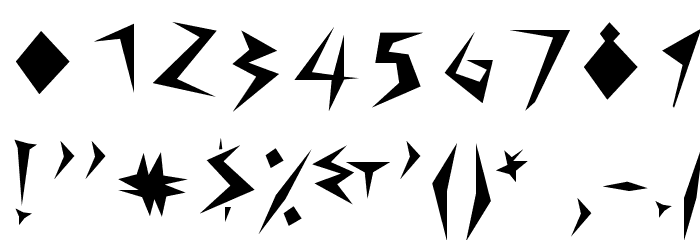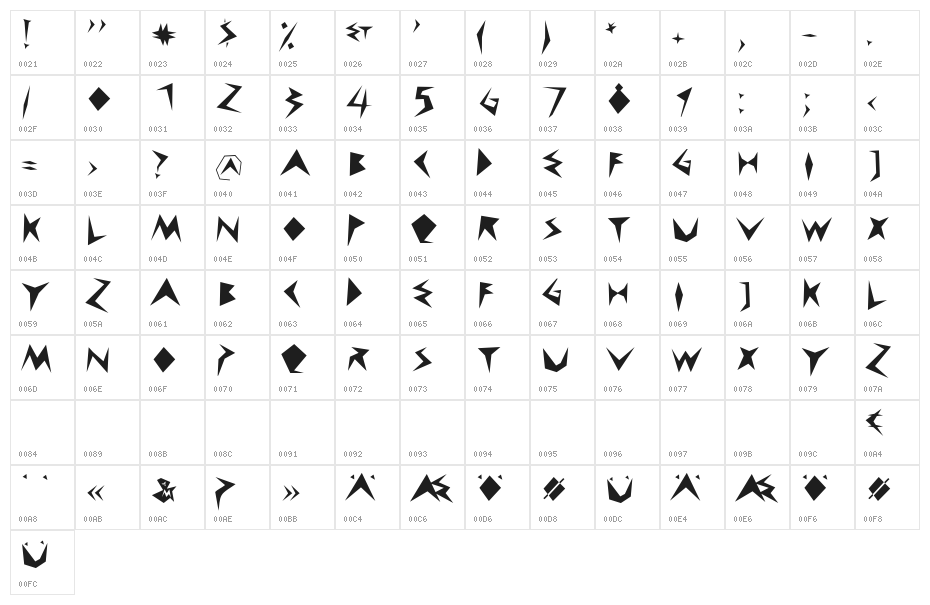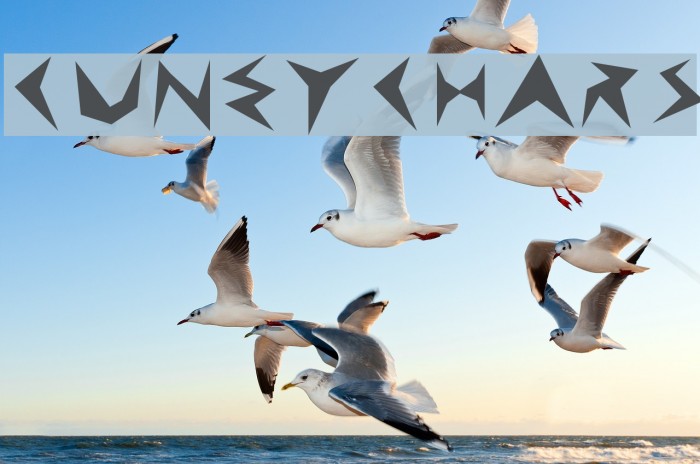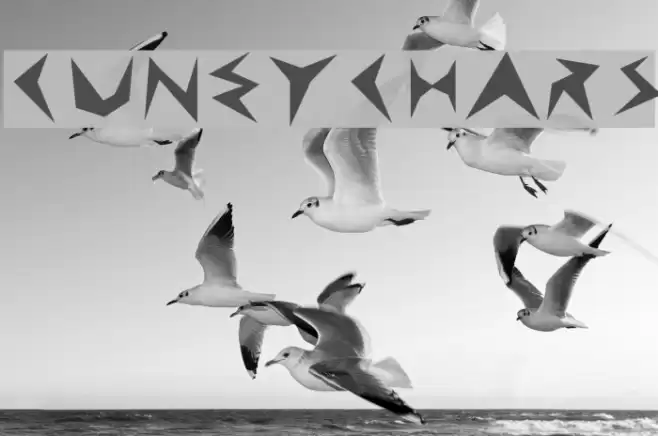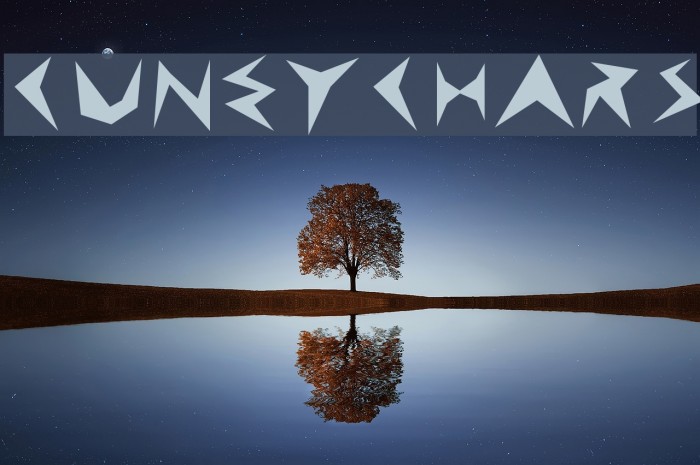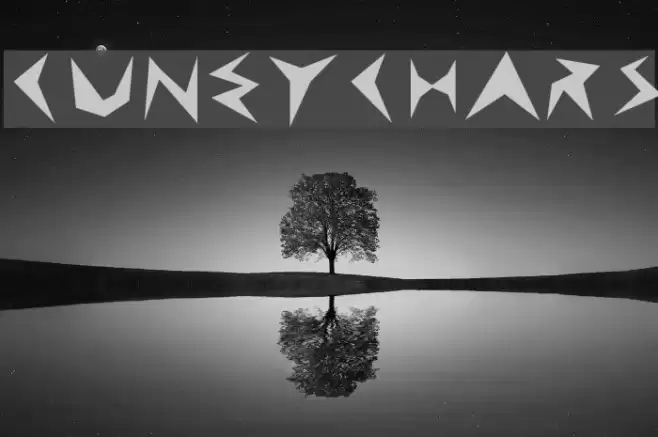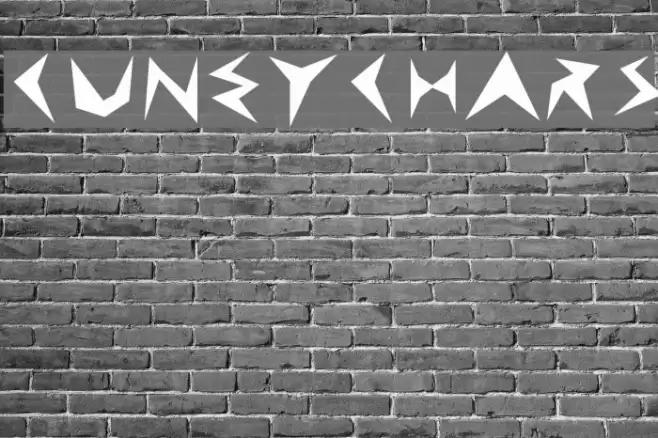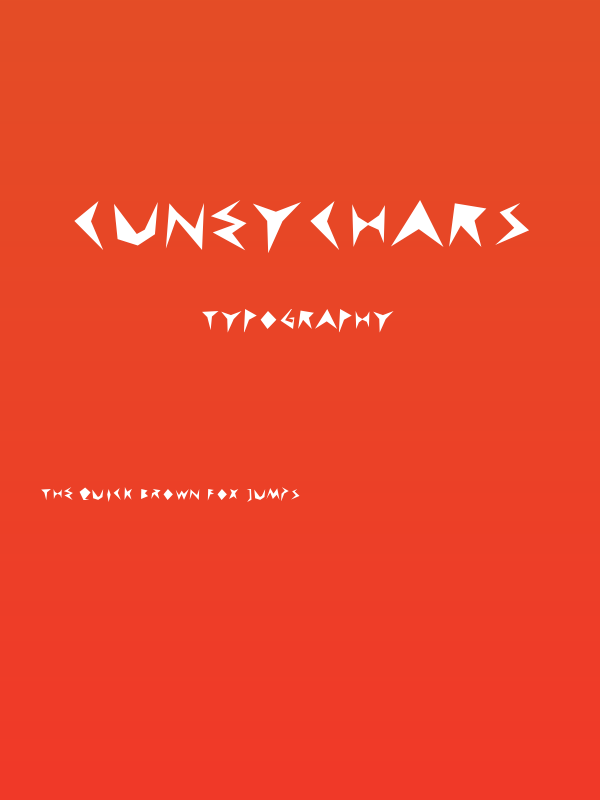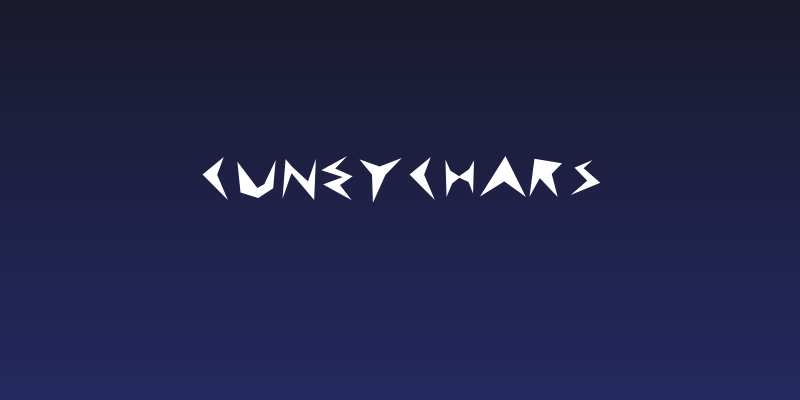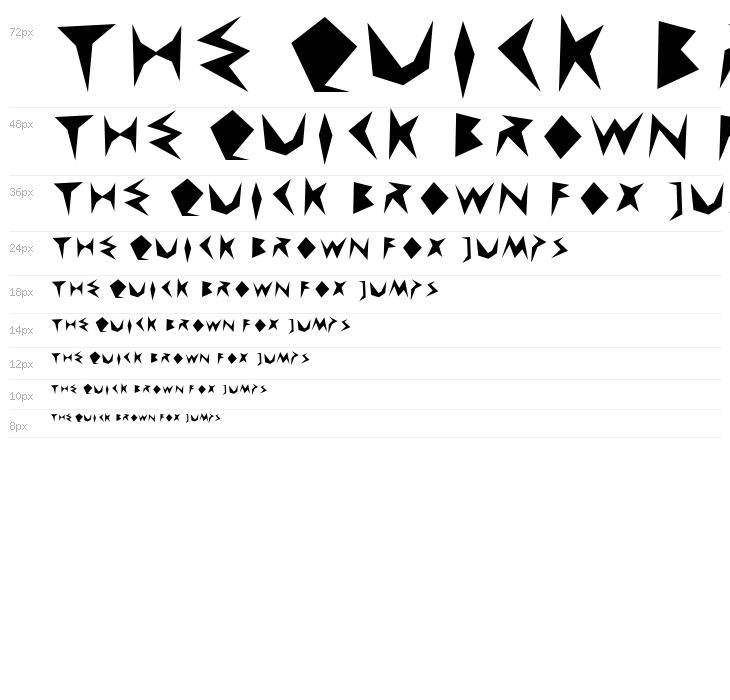
CuneyChars Font
CuneyChars Description
This font features a bold and angular design, characterized by sharp, jagged edges and a geometric aesthetic. Each character is uniquely crafted with a dynamic, edgy style that conveys a sense of motion and energy. The uppercase letters are particularly striking, with exaggerated angles and points that create a visually arresting appearance. The lowercase letters maintain this angular theme, offering a consistent look across the typeface. Numbers and special characters are equally bold, with distinctive shapes that enhance the font's overall impact. This font is ideal for projects that require a strong, attention-grabbing visual element.
| Overall Style | Modern, Edgy |
| Proposed Projects | Ideal for posters, album covers, video game graphics, and branding that requires a bold statement. |